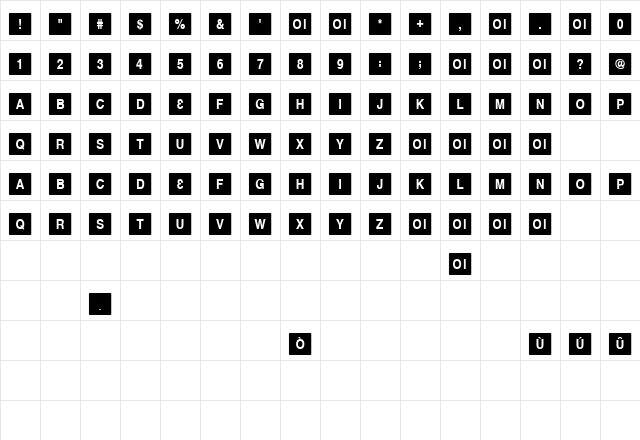
Homewrecker Regular
Design Context for Homewrecker Typeface
Homewrecker offers clean, dependable letterforms without strong stylistic allegiance, making it a practical choice for designers who need flexibility.
Pro Tip: Use Homewrecker in both headline and body roles to test its range before committing to a single application.